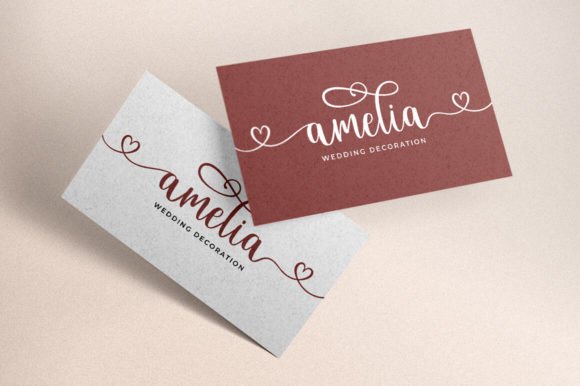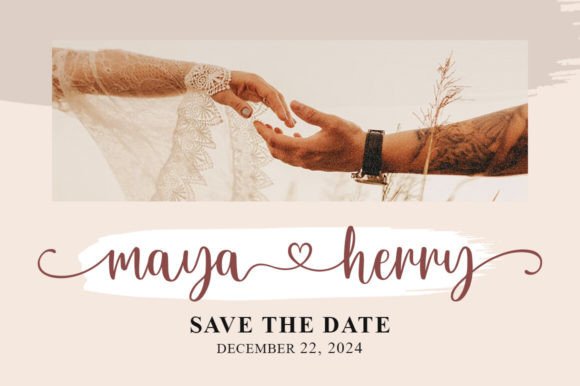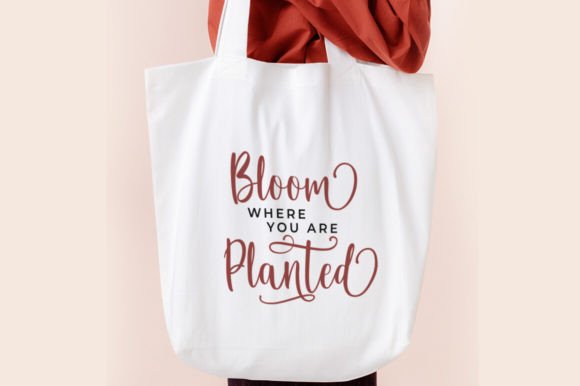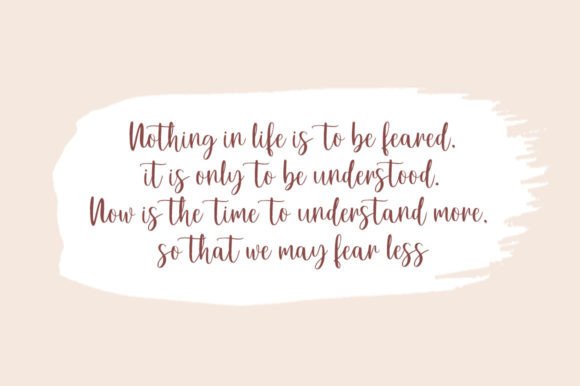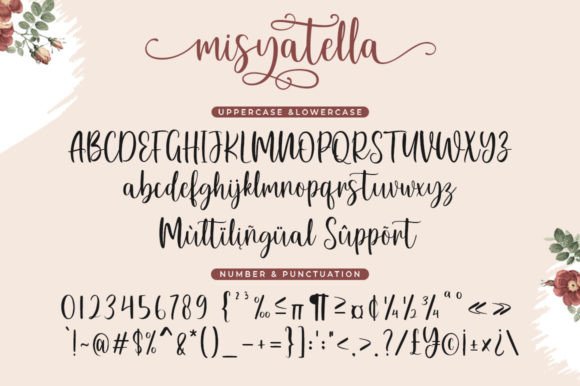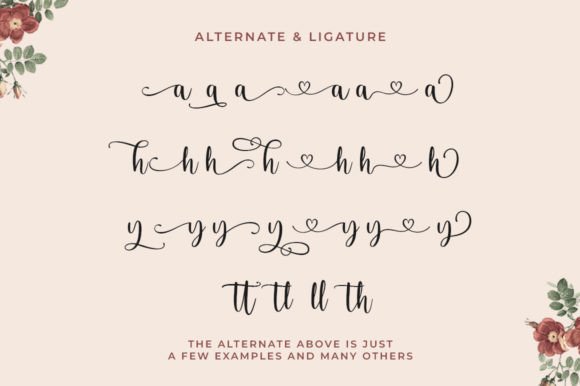
Introduction to Misyatella Font Font
Fonts play a crucial role in design, and the Misyatella Font font is a typeface that brings both character and versatility to any project. Whether you’re working on a branding project, a website, or a print design, the Misyatella Font font offers a unique style that can elevate your work.
Misyatella embodies a delicate and rejuvenating handwritten font, igniting a wellspring of creativity with its profoundly romantic ambiance.
This font is a superlative choice for a plethora of design applications, including but not limited to invitations, logo and branding development, photography, advertising, watermarks, social media content, product packaging, product design, labels, wedding collateral, stationery, special events, and any project that demands a refined and handwritten aesthetic .
Key Features of Misyatella Font Font
Why Choose Misyatella Font Font?
The Misyatella Font font is more than just a typeface – it’s a design tool that helps you communicate your message with style and clarity. Its unique character set and versatile design make it suitable for a wide range of applications, from elegant invitations to bold headlines.
With its carefully crafted letterforms and balanced proportions, the Misyatella Font font ensures readability and visual appeal across all mediums.
What makes Misyatella Font font special?
The Misyatella Font font stands out with its unique design, exceptional readability, and versatility across various design applications.